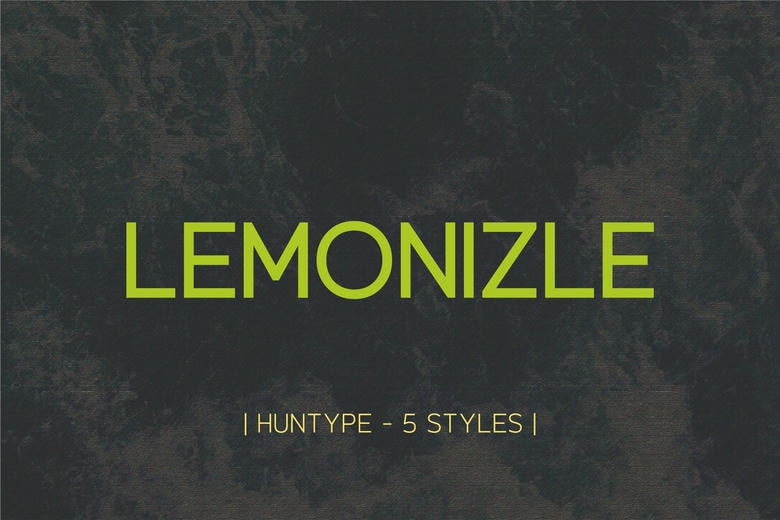
Lemonizle Font
Lemonizle is a modern and versatile font family, a blend of clean geometric forms and subtle sophistication. Its adaptable style is evident in the precise letterforms and contemporary aesthetic. A harmony of sharp lines and gentle curves. Each font in the family stands alone, impactful and refined in its own right.
Lemonizle Sans Serif Font